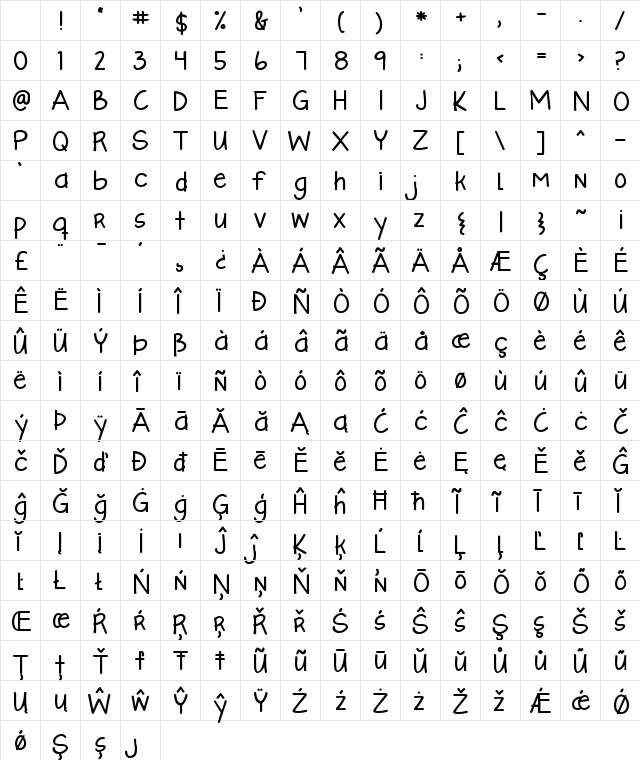
Complete KG Like A Skyscraper Bold glyph index. Displaying only characters natively supported by KG Like A Skyscraper Bold font.
KG Like A Skyscraper is a composed and adaptable typeface that performs quietly and consistently across a wide range of design contexts. Its bold stroke weight gives it real presence on the page.
Pro Tip: Use KG Like A Skyscraper in both headline and body roles to test its range before committing to a single application.